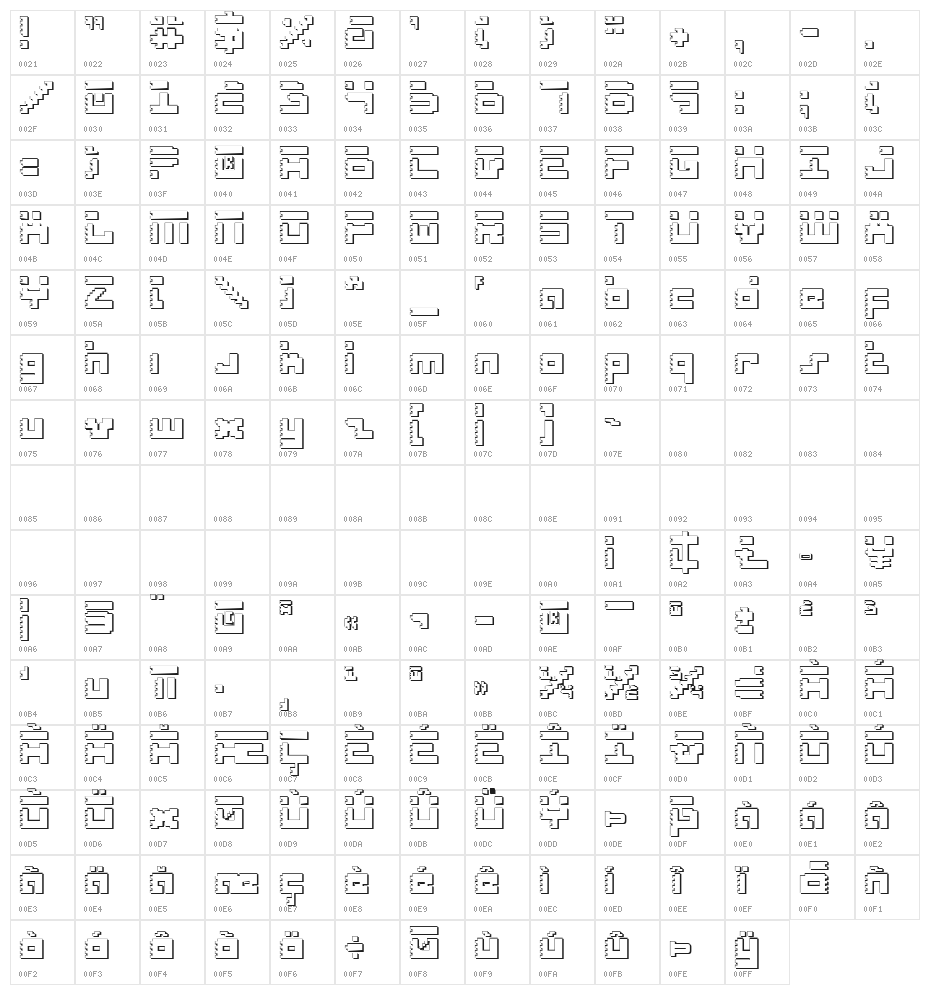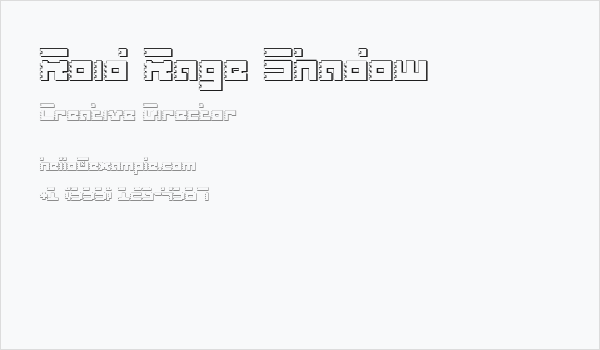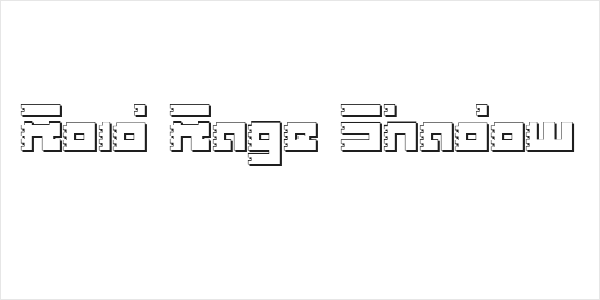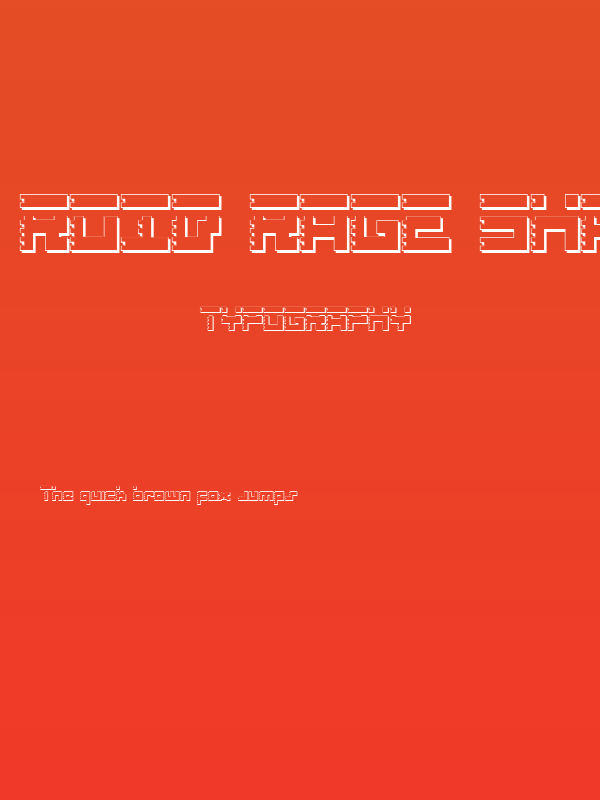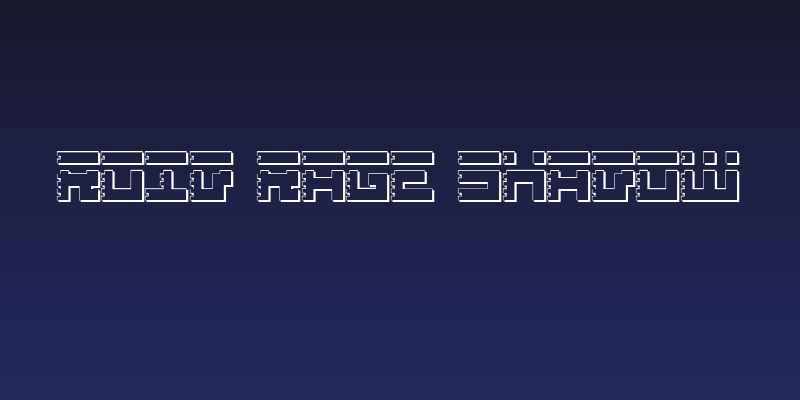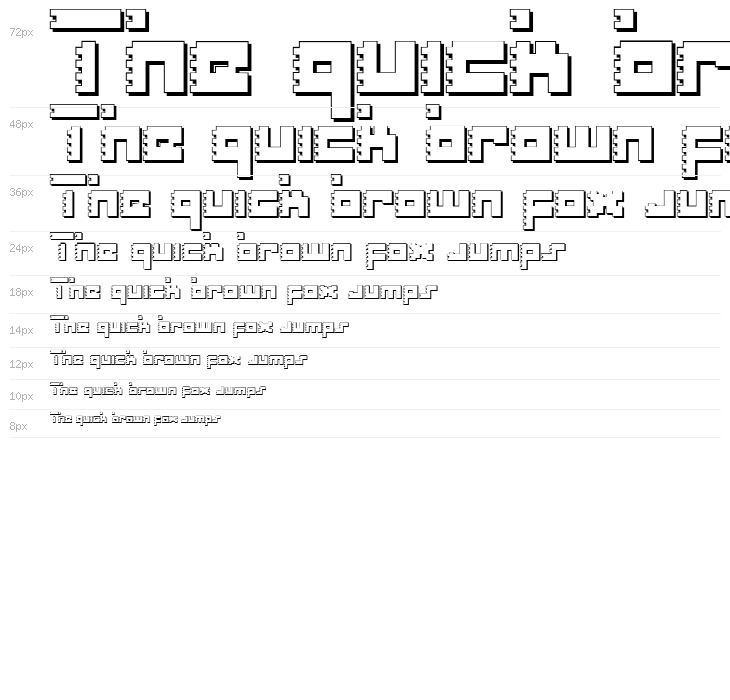
Roid Rage Shadow Font
| Stile generale | Retro, Digital |
| Progetti proposti | Ideal for video game graphics, retro-themed posters, or any project needing a bold, digital aesthetic. |